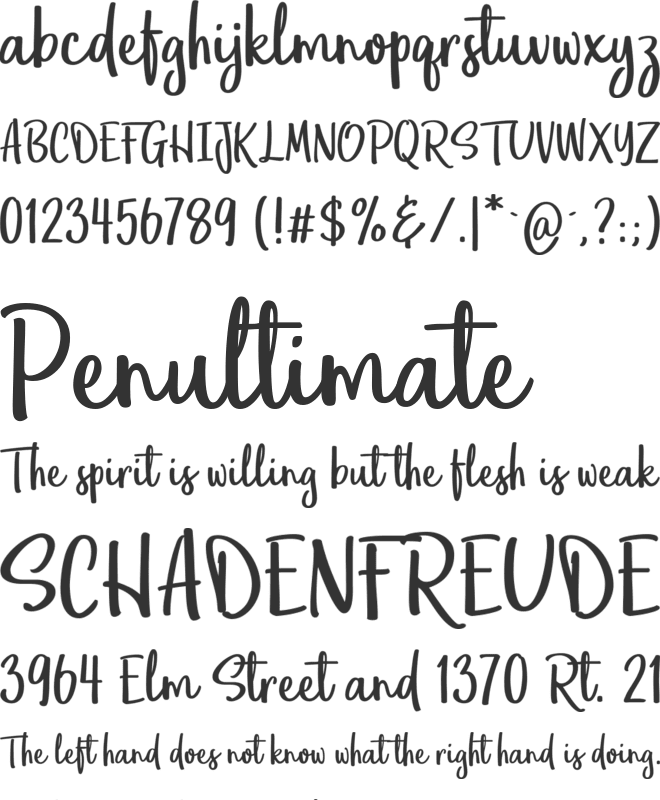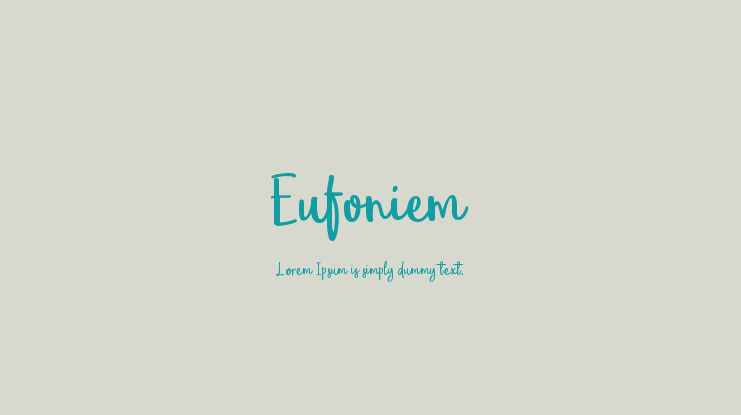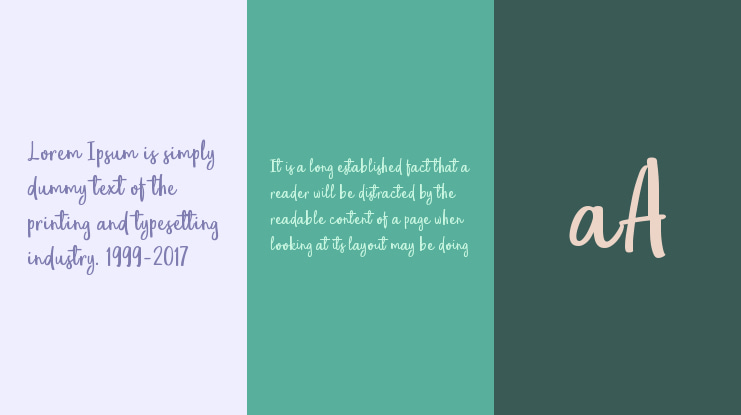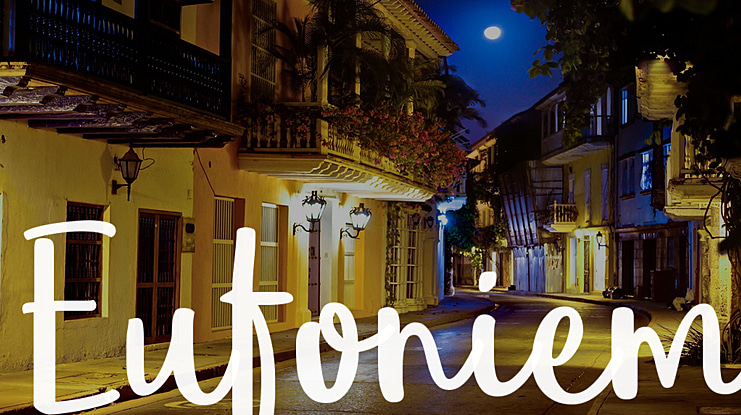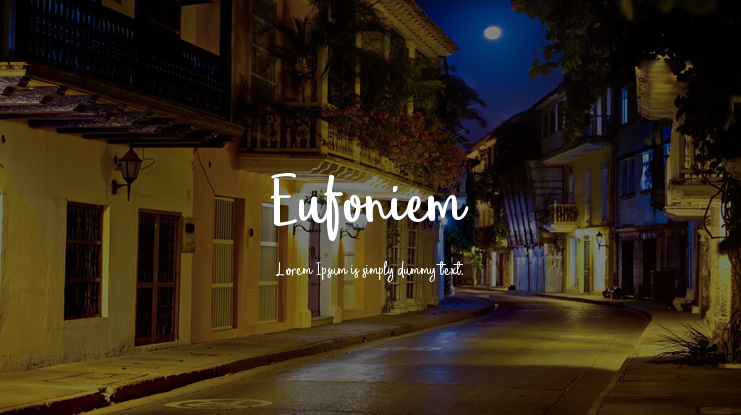
Eufoniem Font Family
Eufoniem comes with two varians; Eufoniem One and Eufoniem Two, so that you can mix and match your typography and design with easy and varied.
Features: - Two varians - Auto terminal form on several selected letters. - Symbols, puctuation, numeral - Multilanguage support